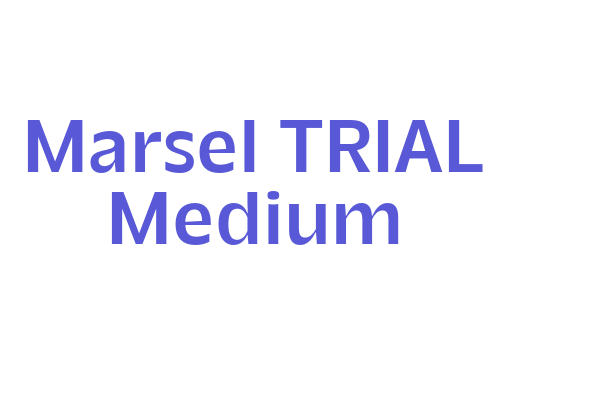
Marsel TRIAL Medium is a clean and modern sans-serif font designed by Alex Chavot. It belongs to the Marsel TRIAL font family and is categorized under Basic and Sans serif styles. This font is ideal for creating sleek and professional designs, making it suitable for a wide range of projects such as branding, advertising, and editorial design.
Font Name: Marsel TRIAL Medium
Designer: Alex Chavot